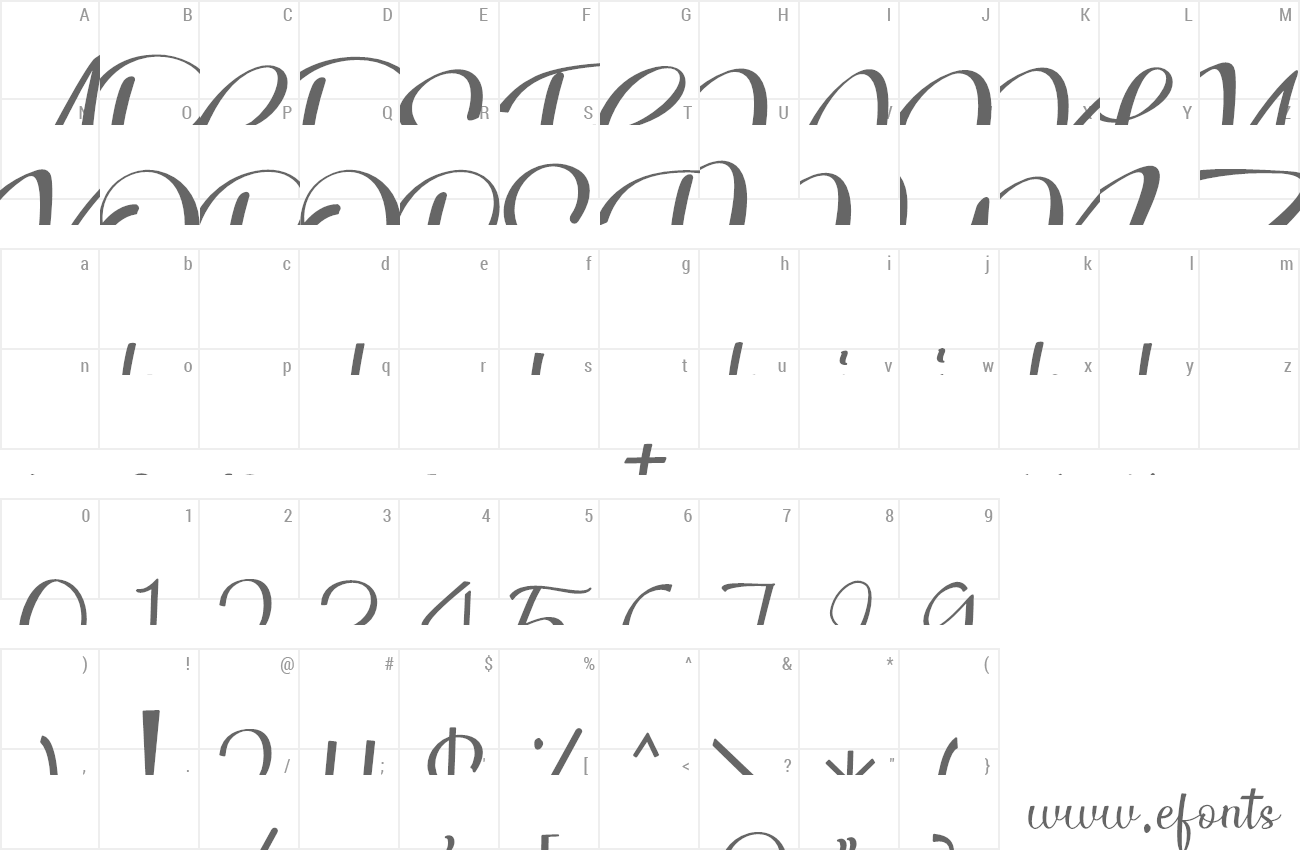
| Font name: | Headland Script |
| Author: | Fikry Alif |
| Note by Fikry Alif | |
Hello introduce my latest font, Headland scipt. it's a script font that has a lot of stylistic alternet features. namely: stylistic alternate 01 ����������stylistic alternate 02 ����������stylistic alternate 03 ����������stylistic alternate 04 ����������stylistic alternate 05 ����������and swash This font is very neat and artistic and aesthetic, although I present this font in a preview of classic and vintage nuances, but this font is also suitable for modern things. This font is also equipped by multilingual support !!! This font is perfect for some of your needs such as: mockup, quotes, titte book, cover, headline, poster, banner, product, packaging, etc. what will you get by buying this? �������-Headland otf �������-Headland ttf enjoy downloading and enjoy my products not: if anyone wants to be asked, don't hesitate to contact me at email: mfikryalif@gmail.com and follow my Instagram @fkryall Note : this font just for personal use , if you want to commercial use please visit link below https://fontbundles.net/fikryal/218134-headland-script-typeface Warm regards, fikry |